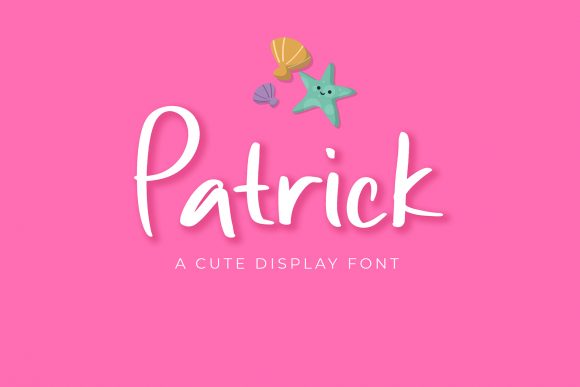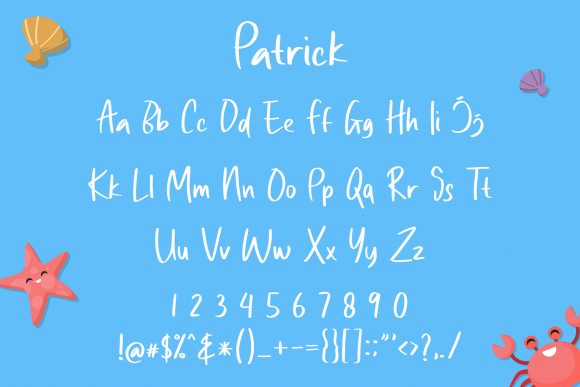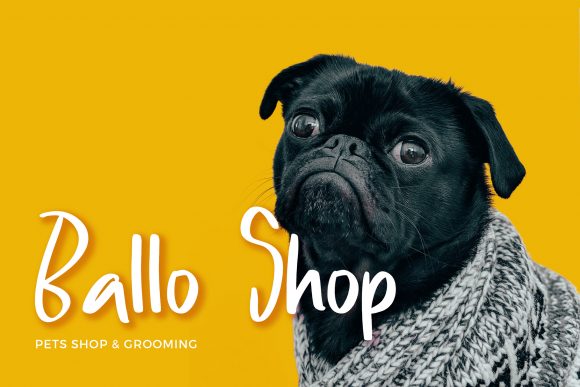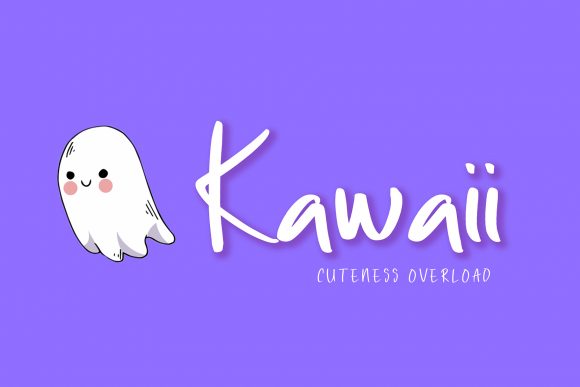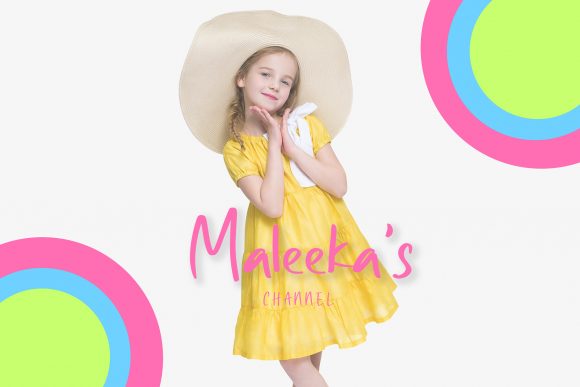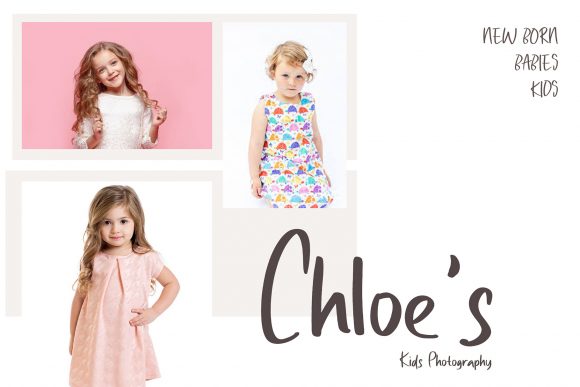
Patrick Font
About Patrick Font
Patrick is a cute handwritten font. Its sweet and full of life style makes this font a wonderful choice for brightening up your designs.